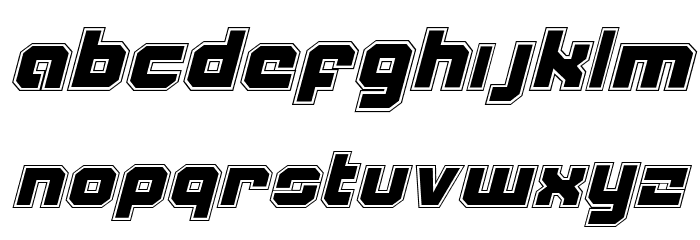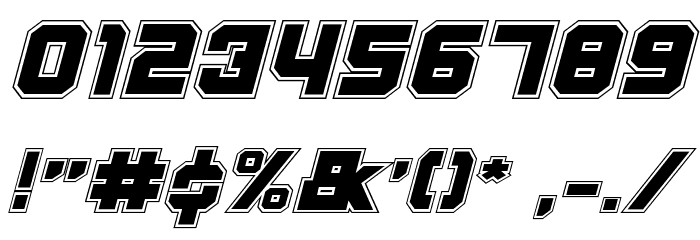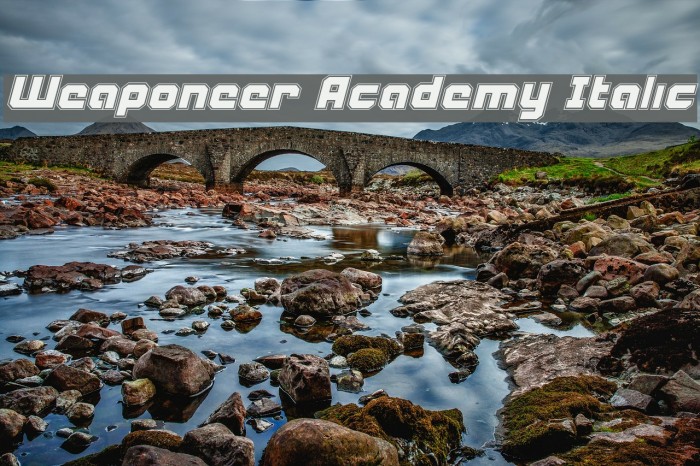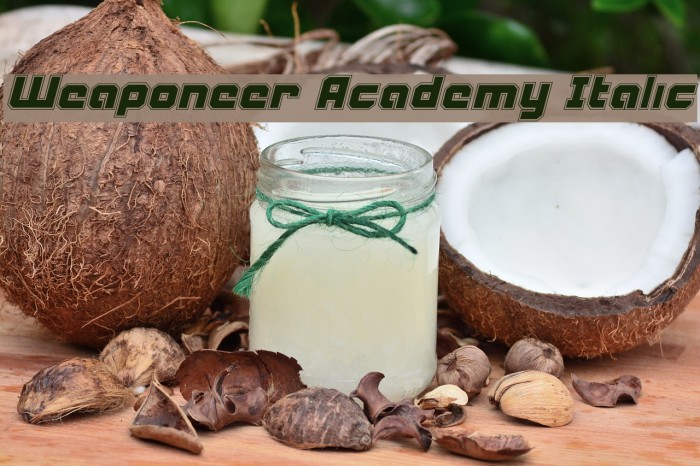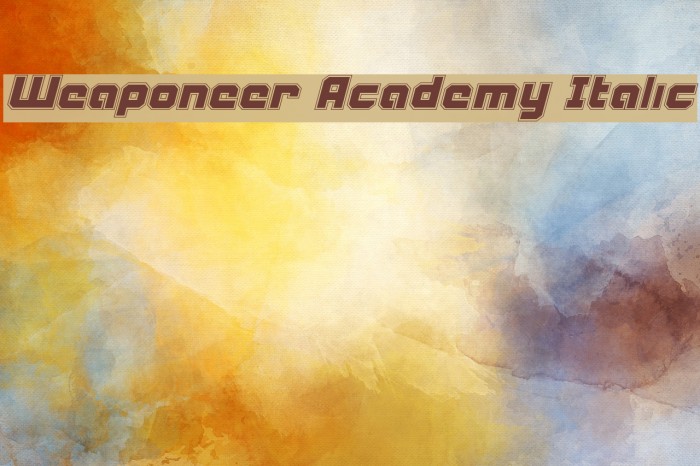
Weaponeer Academy Italic Font
This font features a bold, italicized style with a strong, futuristic appearance. The letters are outlined with a thick border, giving them a three-dimensional look. The angular design and sharp edges contribute to a dynamic and energetic feel, making it stand out in any design. The uppercase and lowercase letters maintain a consistent style, with the lowercase slightly smaller but equally impactful. Numbers and special characters are designed to match the bold aesthetic, ensuring uniformity across all text elements. The font's unique style is ideal for projects that require a modern and edgy look.
A bold, italicized font with a futuristic and dynamic style.
- Proposed Projects: Ideal for video game titles, tech branding, sports team logos, and sci-fi themed designs.
- Contrast: High
- Overall Style: Futuristic